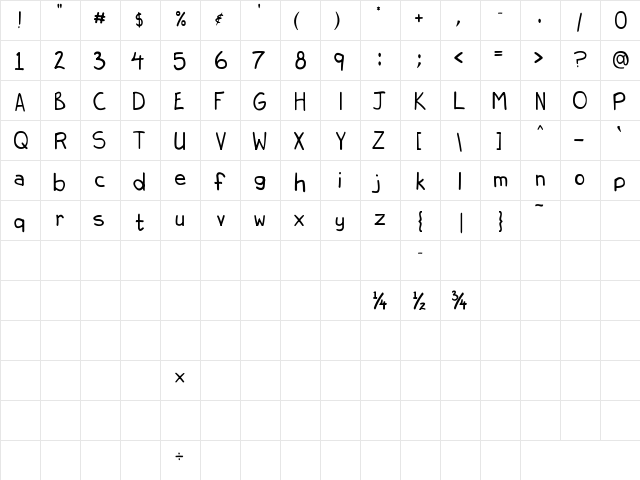
Test Regular
| Foundry | Steel City Basic |
| Designer | Jay and Tay |
Design Context for Test Typeface
Test takes a measured approach to typography — its balanced proportions and neutral character make it a reliable workhorse for both digital and print work.